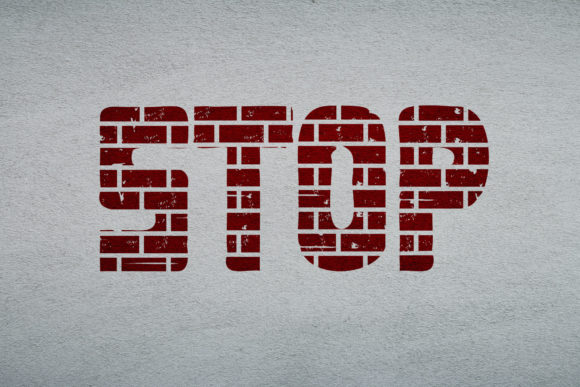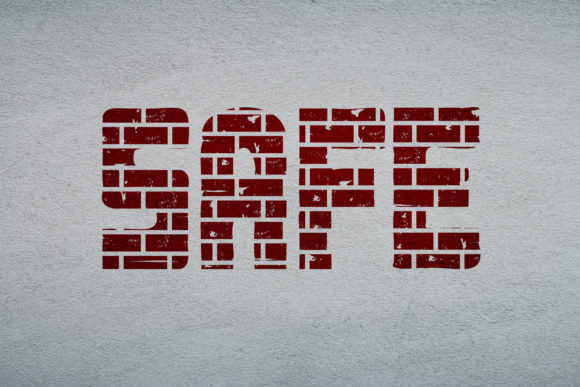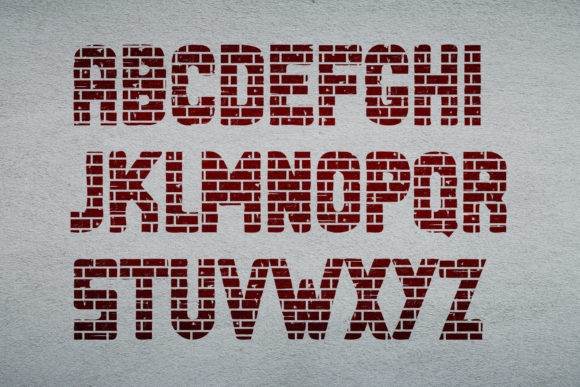
Introduction to Fort Font
Fort is a cool and bold display font, featuring characters that resemble bricks.
Key Features of Fort Font
Why Choose Fort Font?